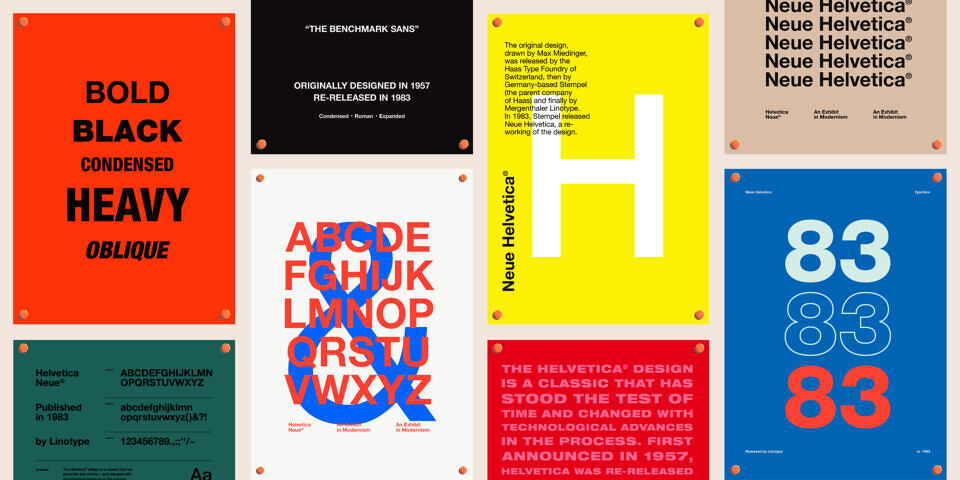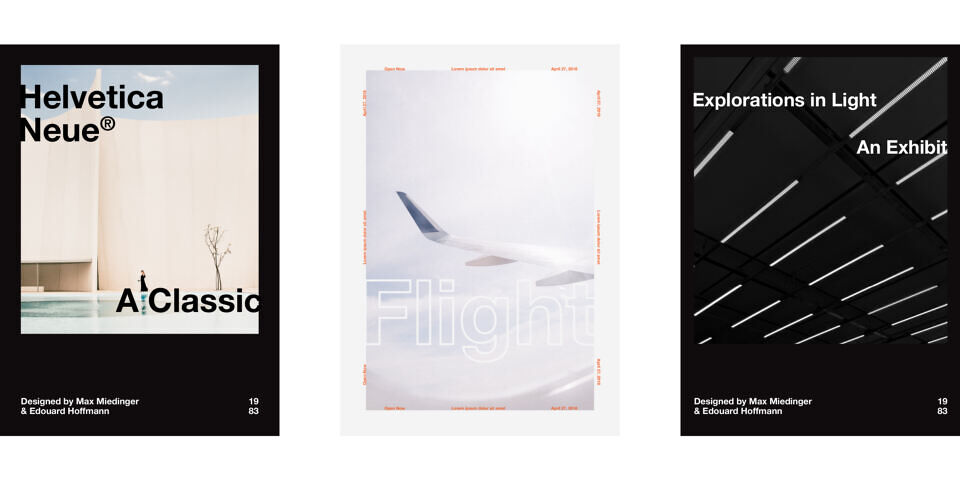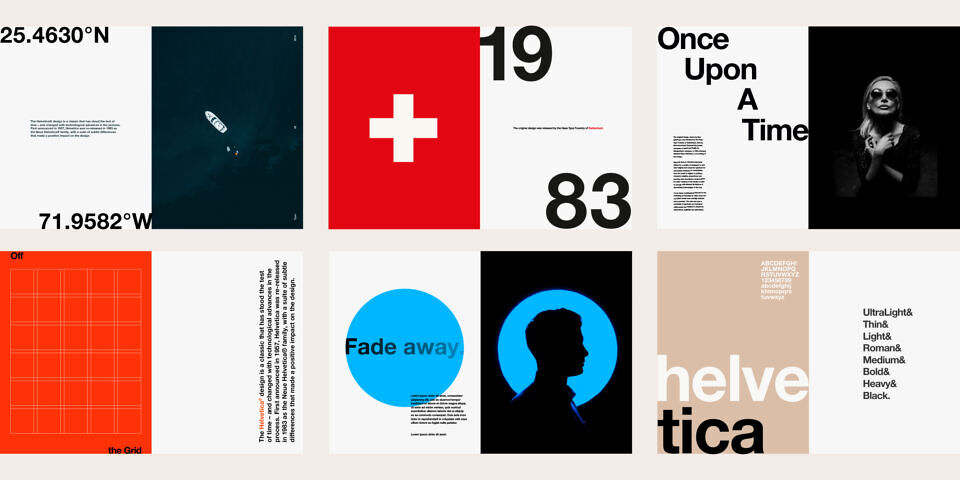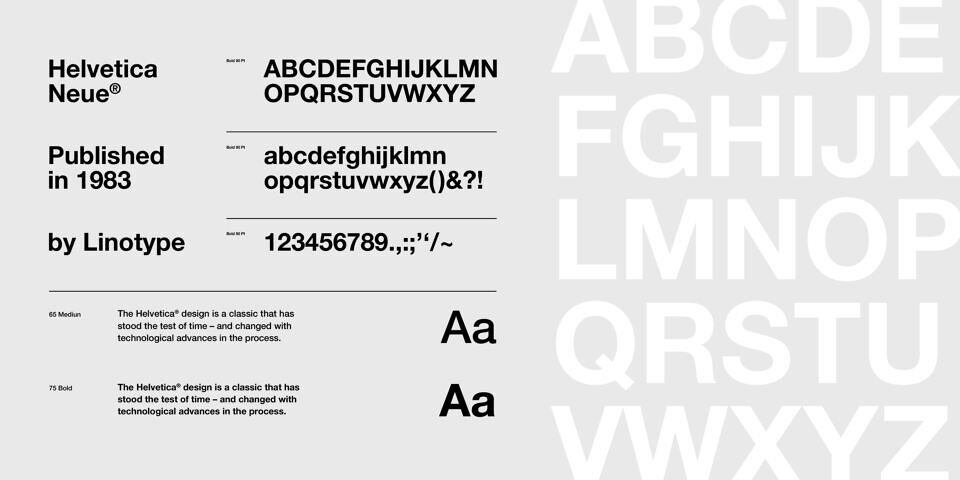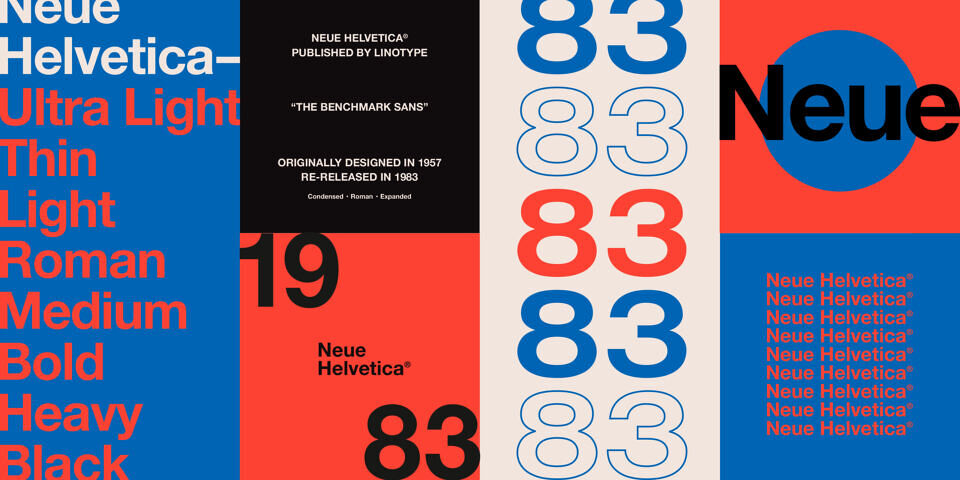
Neue Helvetica is a melding of aesthetic and technical refinements that result in superior design proportions, improved legibility and an expanded range of uses beyond the original Helvetica typefaces.
Neue Helvetica World fonts enable the setting of pan-European languages, in addition to Arabic, Armenian, Cyrillic, Georgian, Greek, Hebrew, Thai and Vietnamese. The Cyrillic fonts include full support of the Unicode block, including characters for Bulgarian, Mazedonian, Serbian and Ukrainian.